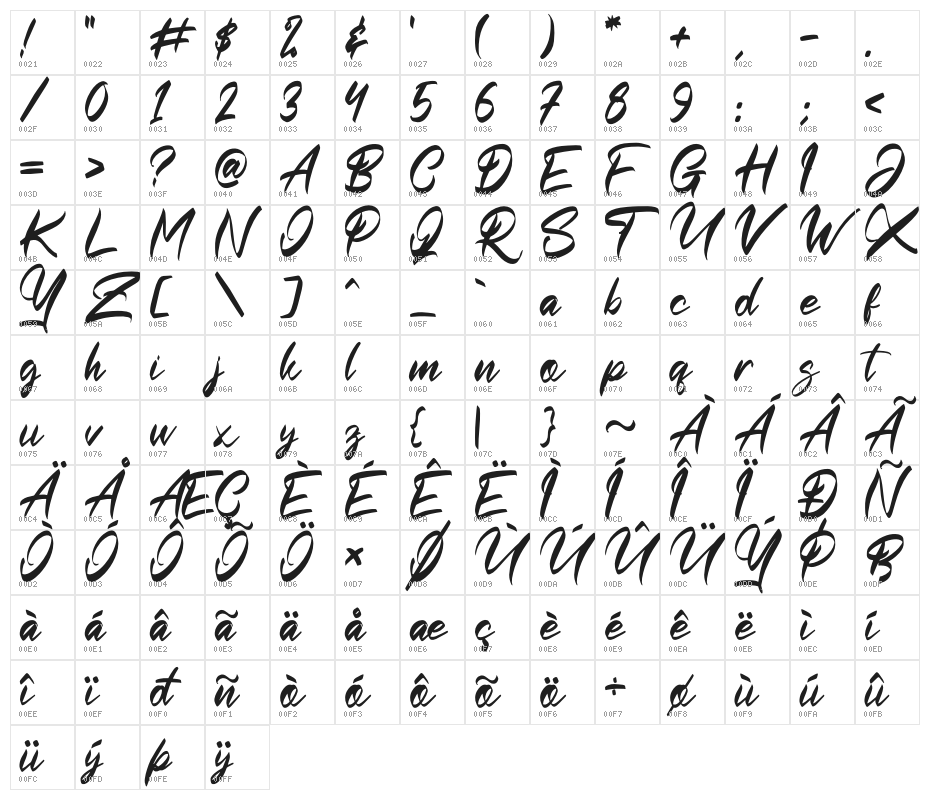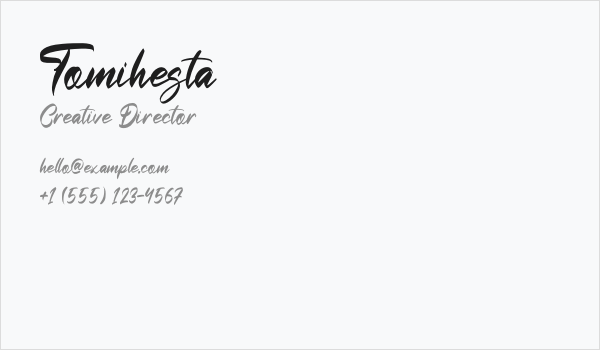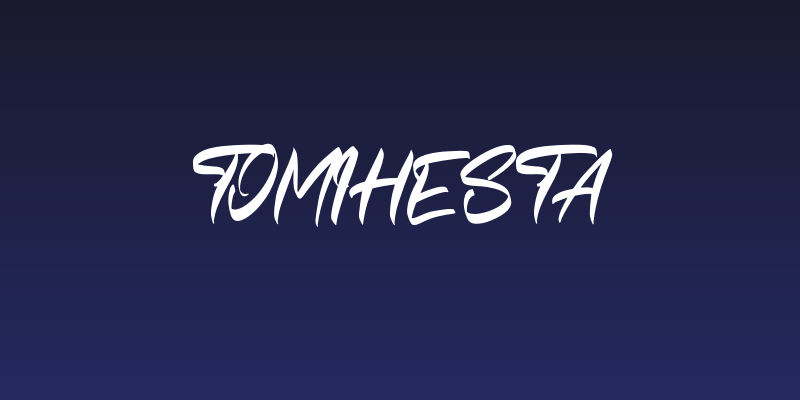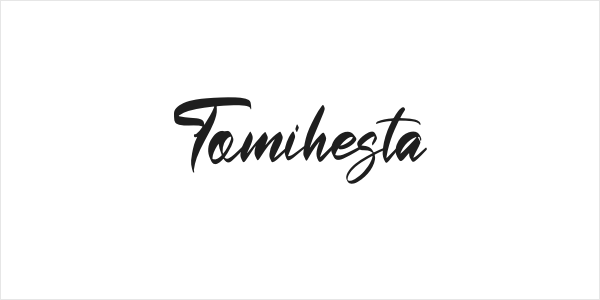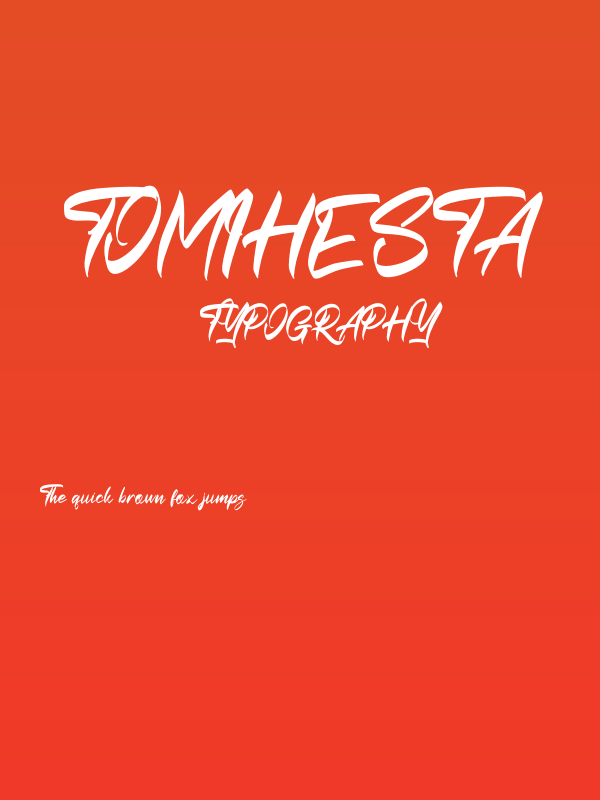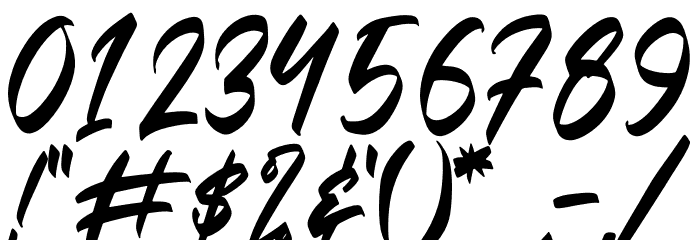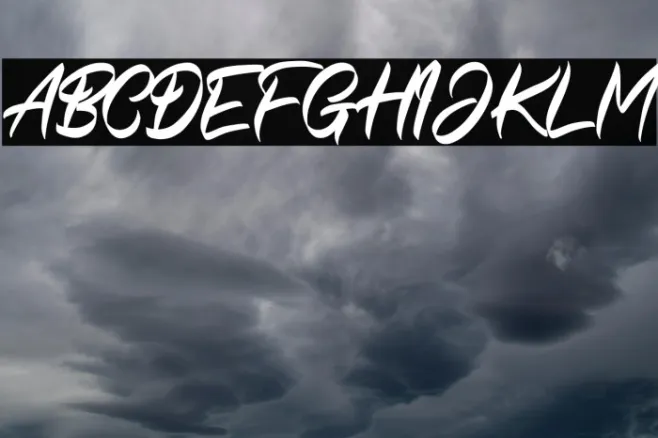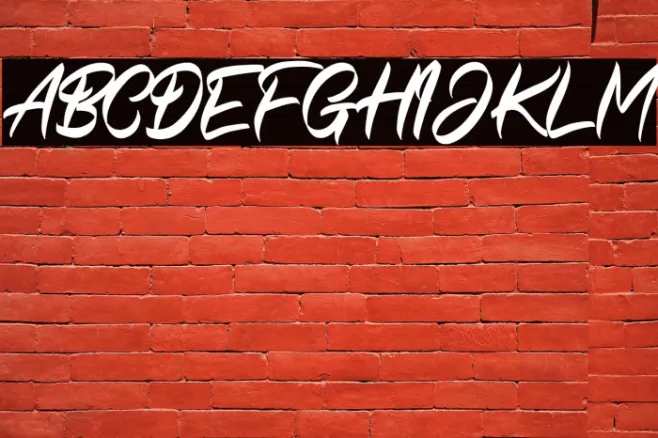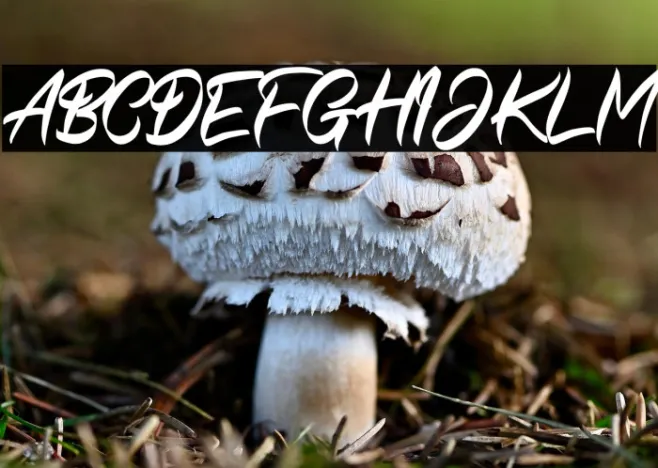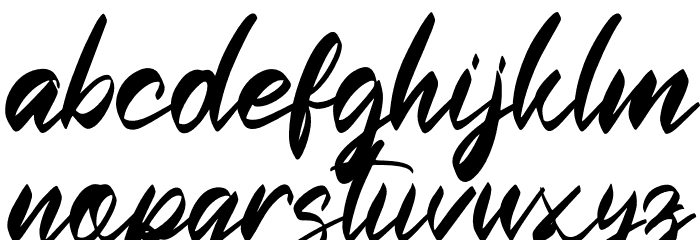
Tomihesta Font
Tomihesta Description
This font features a dynamic and expressive script style, characterized by its bold and fluid strokes. The letters are interconnected, giving it a handwritten appearance with a modern twist. The uppercase letters are slightly more structured, while the lowercase letters exhibit a more freeform and flowing design. The numbers and special characters maintain the same energetic style, ensuring consistency throughout. This font's high contrast in stroke thickness adds to its dramatic and eye-catching appeal, making it suitable for projects that require a personal and artistic touch.
| Proposed Projects | Ideal for branding, invitations, greeting cards, and artistic projects that require a personal touch. |